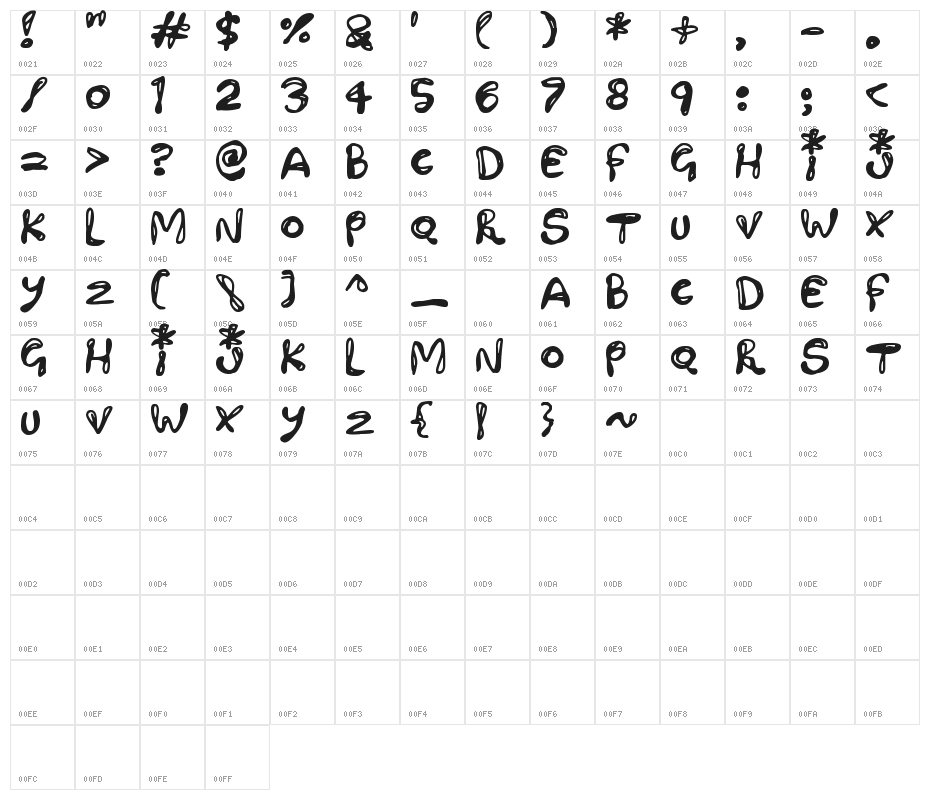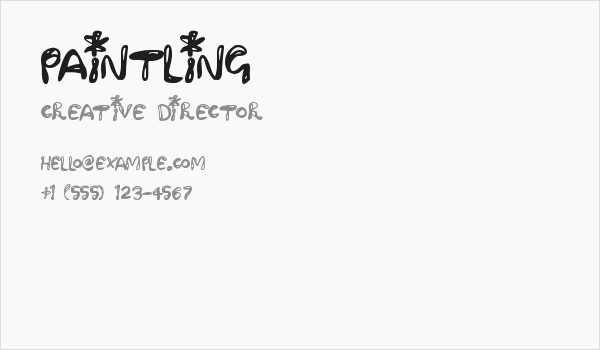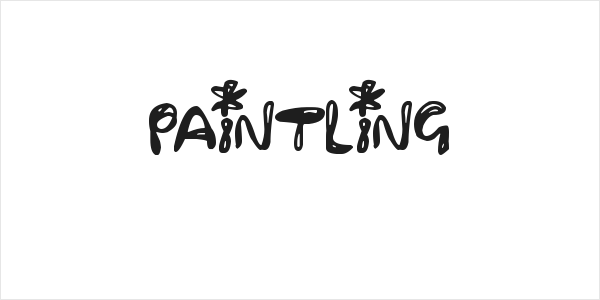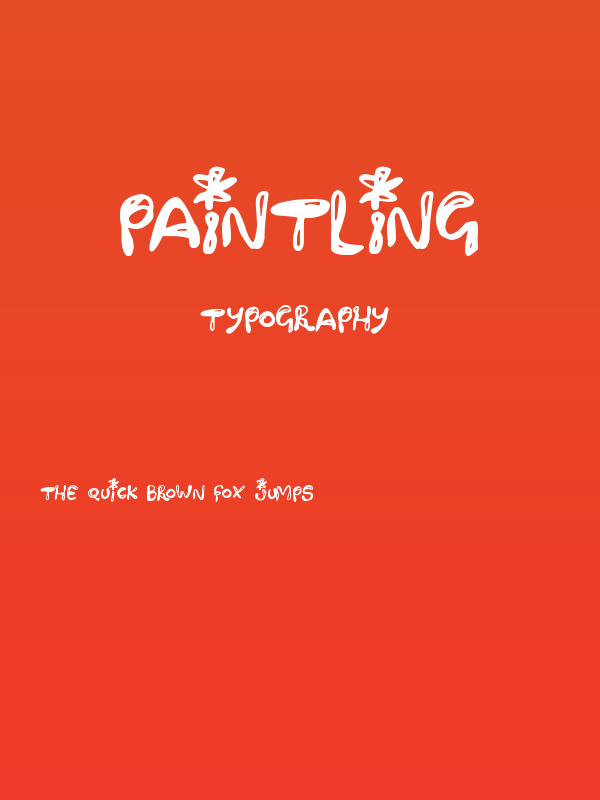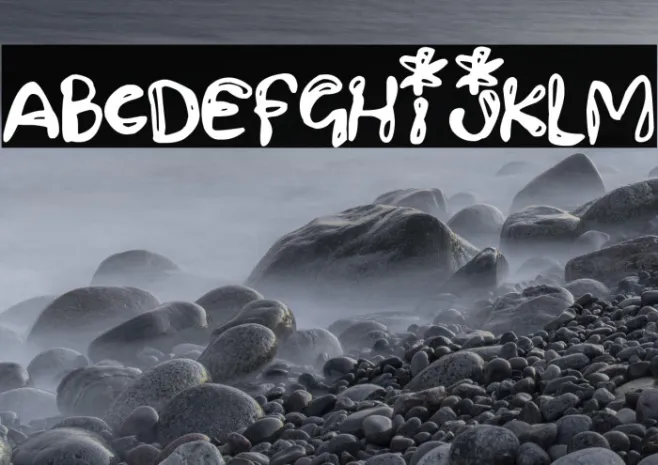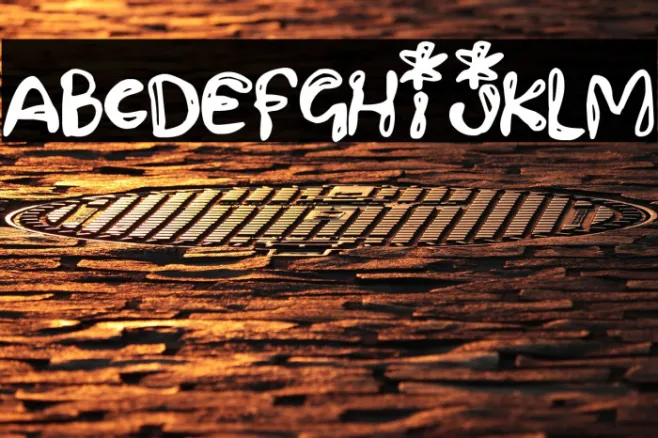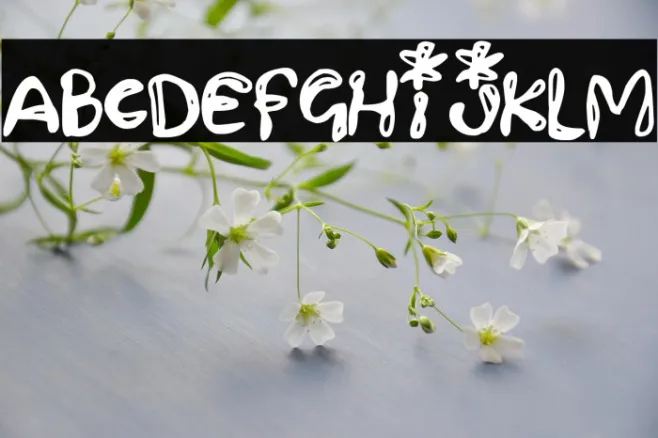
Paintling Font
Paintling Description
This font features a playful and artistic style, characterized by its bold and fluid strokes that mimic a hand-painted appearance. The letters are slightly irregular, adding a whimsical and dynamic feel. The uppercase and lowercase characters maintain a consistent style, with rounded edges and a sense of movement. The numerals and special characters follow the same design principles, ensuring a cohesive look throughout. This font is ideal for projects that require a fun and creative touch, such as children's books, posters, or branding for artistic ventures.
| Overall Style | Playful, Artistic |
| Proposed Projects | Ideal for children's books, creative posters, artistic branding, and playful designs. |